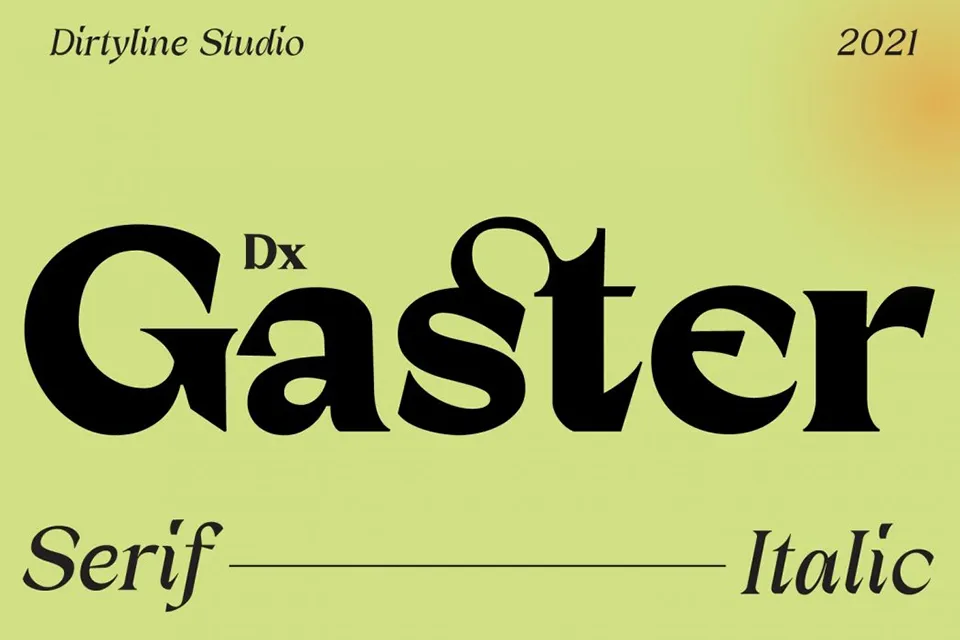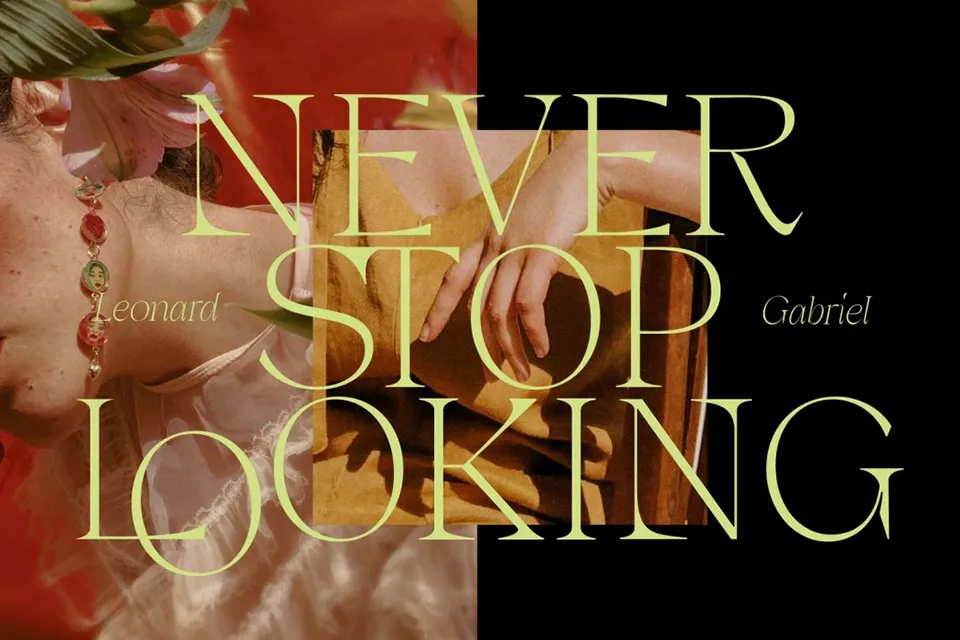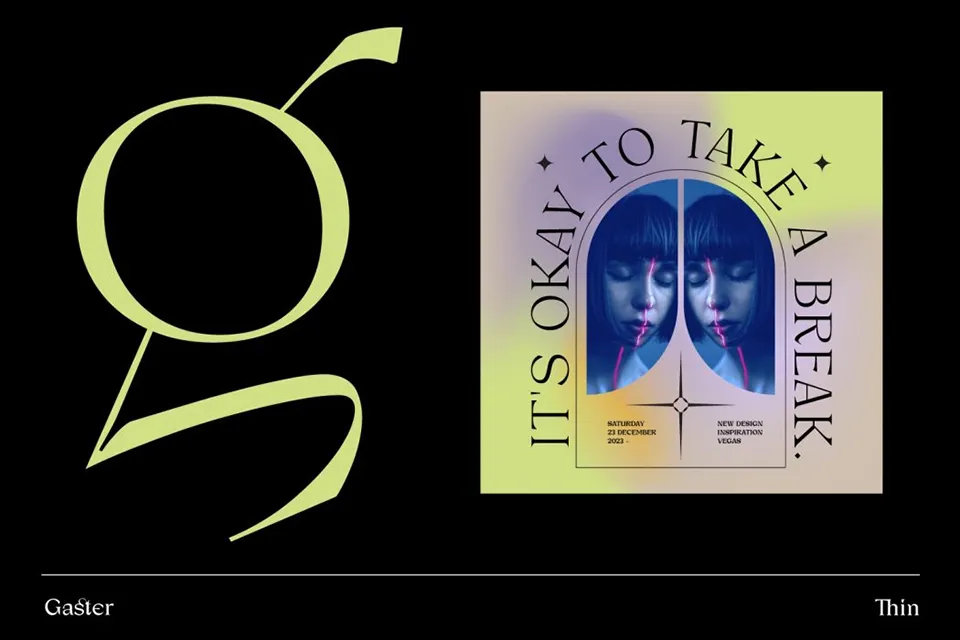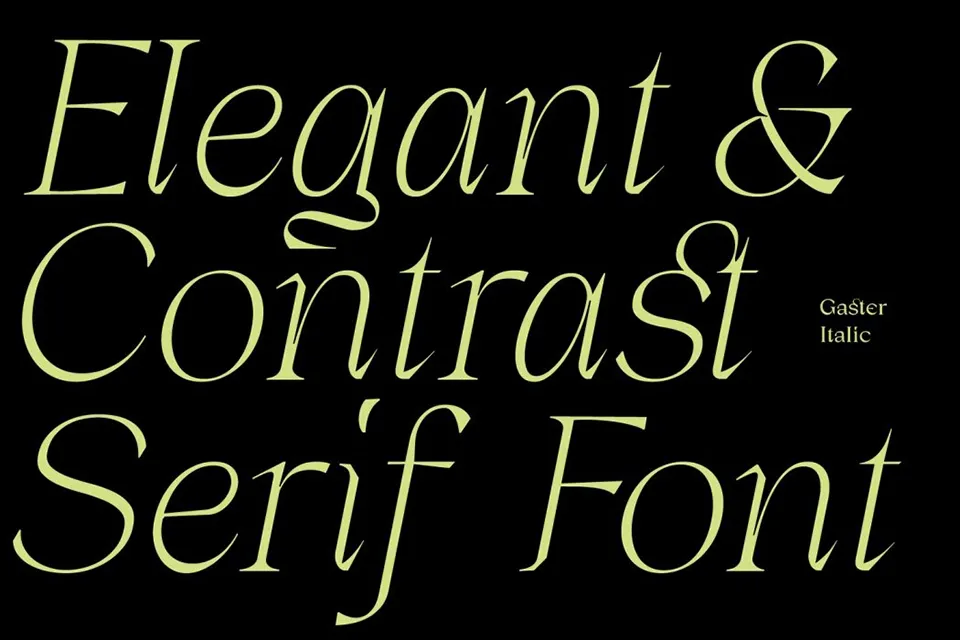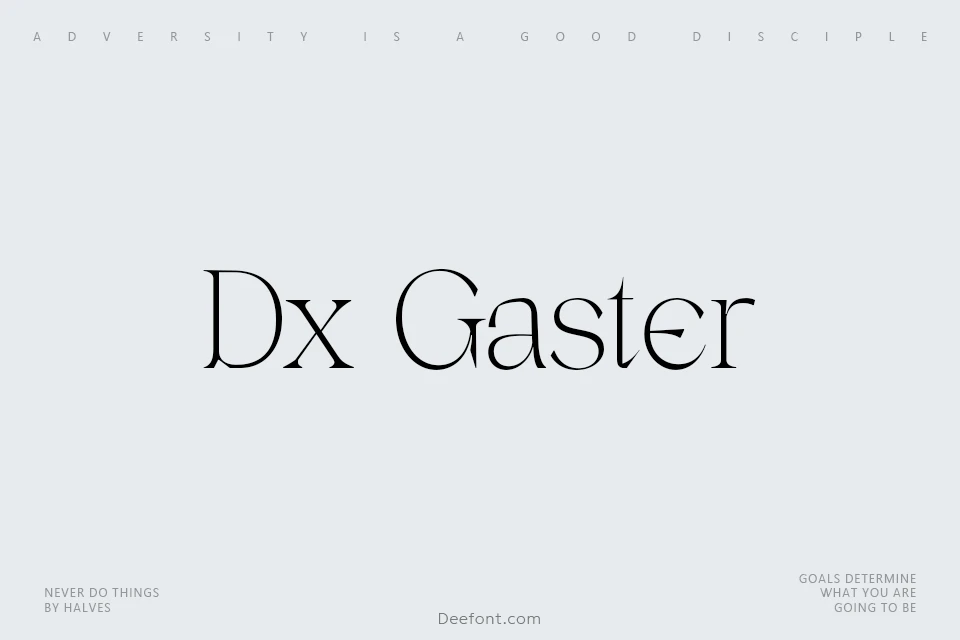
Dx Gaster Font
Dx Gaster Font is a bold and distinctive serif typeface designed by Dirtyline Studio. With its dramatic curves, sharp serifs, and unique letterforms, Dx Gaster brings a modern twist to classic typography. The font includes both regular and italic styles, making it versatile for a variety of creative projects such as branding, editorial design, posters, and headlines. Its strong presence and artistic flair ensure that any text set in Dx Gaster stands out with elegance and confidence. Perfect for designers seeking a typeface that combines sophistication with a contemporary edge, Dx Gaster adds character and style to every composition.